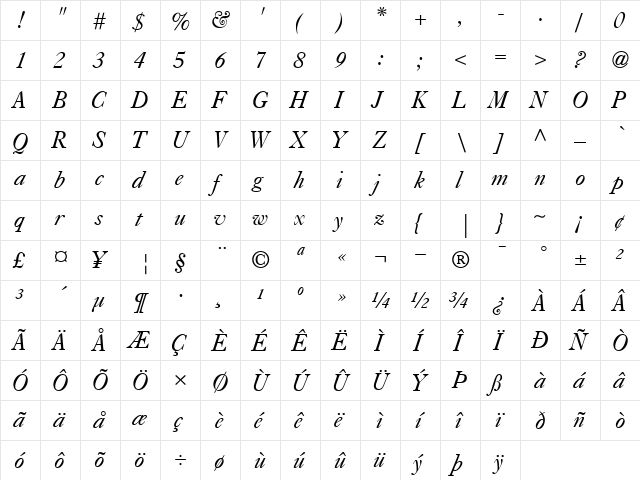
Caslon540 RomanItalic
Design Context for Caslon540 Typeface
Caslon540 is a composed and adaptable typeface that performs quietly and consistently across a wide range of design contexts. Its italic angle brings a sense of urgency and motion to the letterforms.
Pro Tip: Use Caslon540 for emphasis, pull quotes, and subheadings where its slanted energy can add rhythm to the layout.